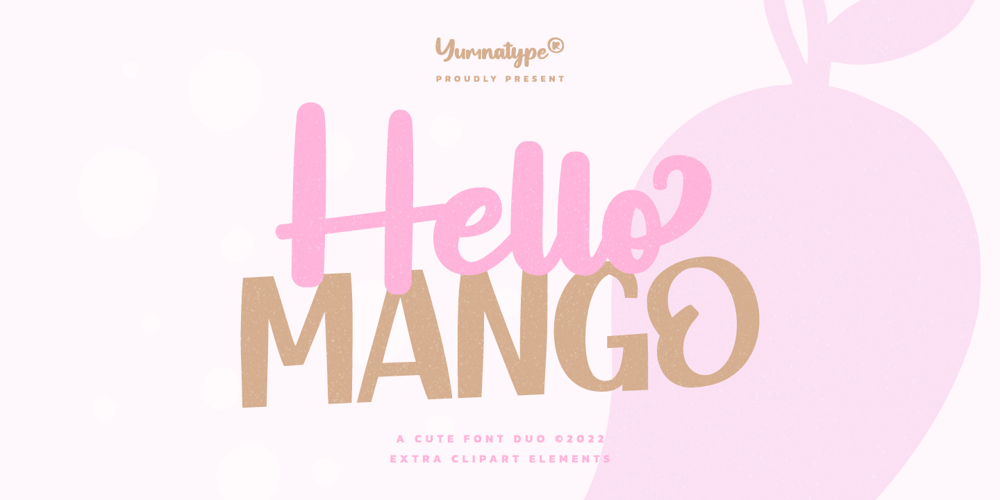
Hello Mango Font Family was designed by Donis Miftahudin and published by Yumna Type. Hello Mango contains 3 styles and family package options. Need that perfect statement fonts for your designs? Hello Mango knows how to make your designs go from good to be ultra good.It is harmonious uppercase display and script font duo. The display font is beautifully designed and add a distinctive touch wherever they are used. On the other hand, the script style expresses elegant and modern look. In this package, you can also get 15 illustrations as special extra.Features: Ligatures Stylistic Sets Swashes Multilingual Supports Uppercase and lowercase PUA Encoded Numerals and Punctuation This font would looks great on your branding, logos, social media quotes, stickers, posters, wall art, merchandise, social media, and many more. Get more inspiration about how to use it by seeing the font preview.Thank you for purchasing our fonts. If you have any further questions, don’t hesitate to contact us. Happy Designing.